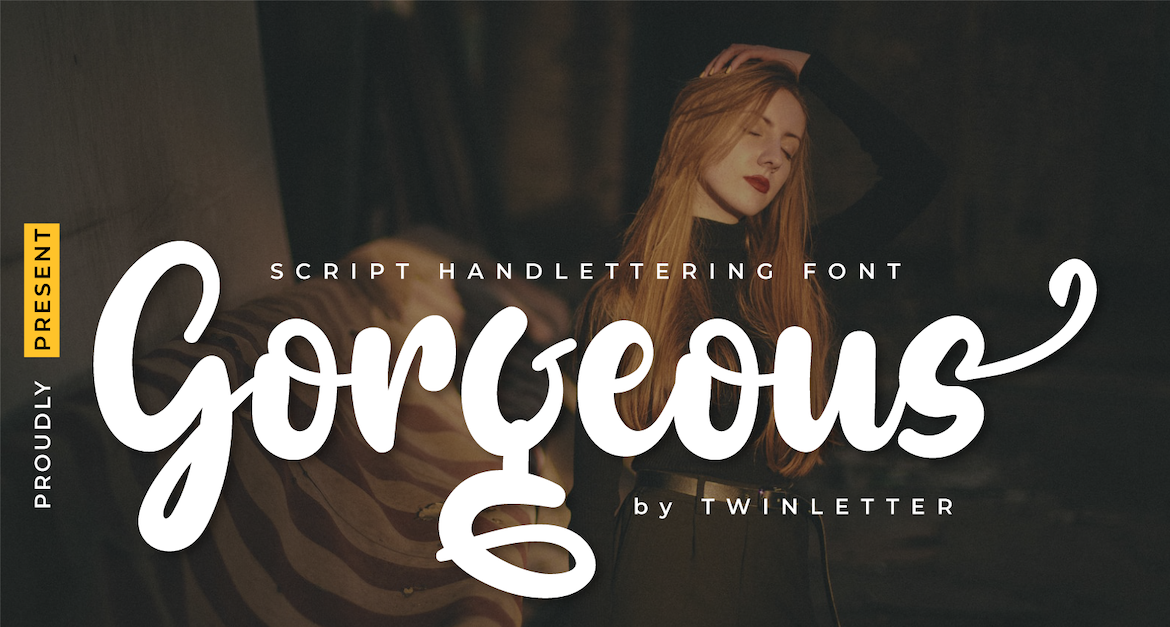
Gorgeous Font
Gorgeous is a friendly handwritten font. It has hand-made strokes and dramatic curves. This bold calligraphy font features a relaxed but elegant style, and it is perfect for wedding invitations, quote designs, social media posts, advertisements, trademarks, texts, posters, signatures, and more!
This charming font also offers the beauty of abstract typography harmony for a wide variety of design projects, including digital natural handwriting for designs, quote designs, for social media business designs, advertisements, trademarks, food and beverage promotion banners, text, posters, signature, and all designs require handwriting or whatever design you want.